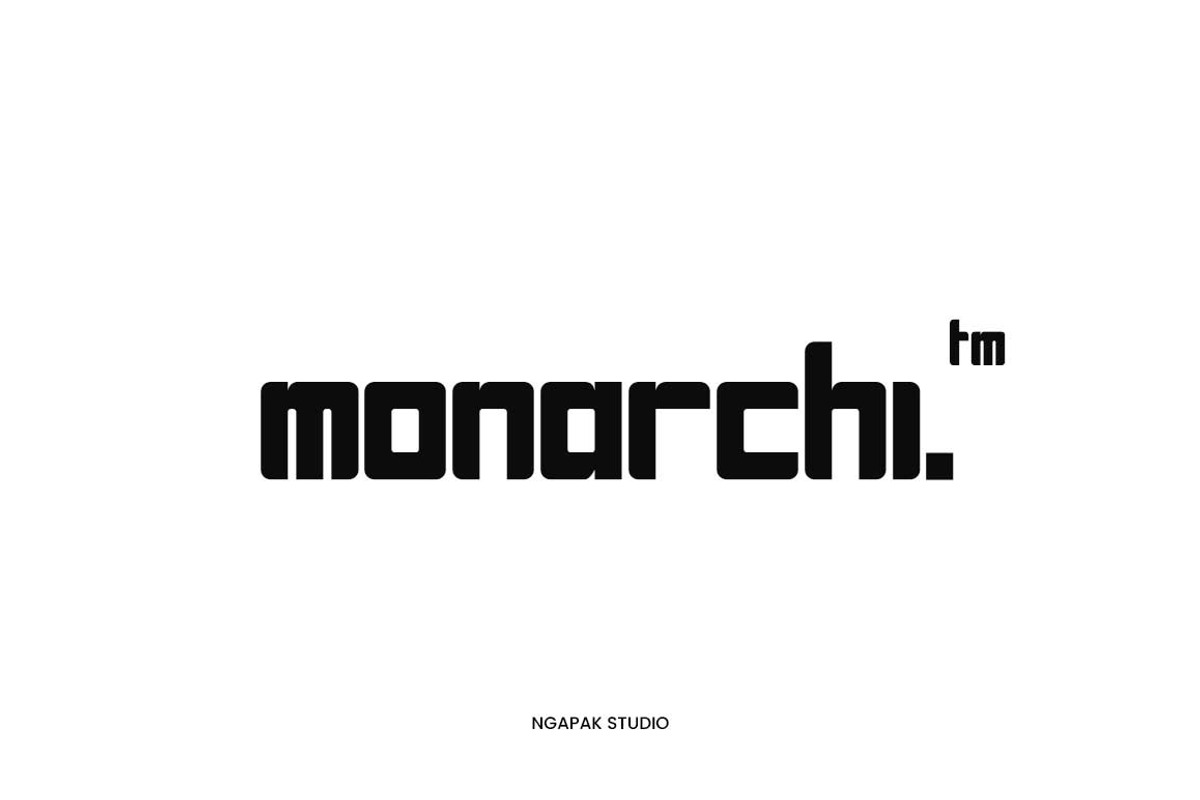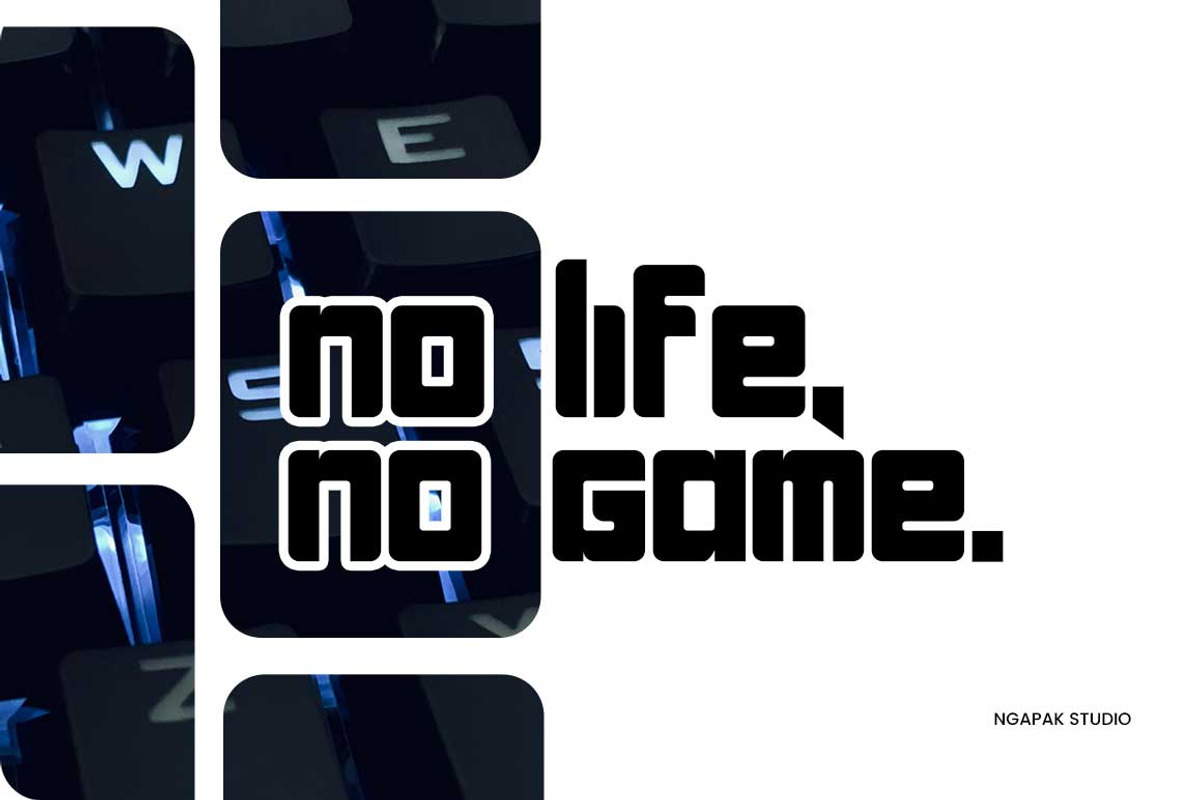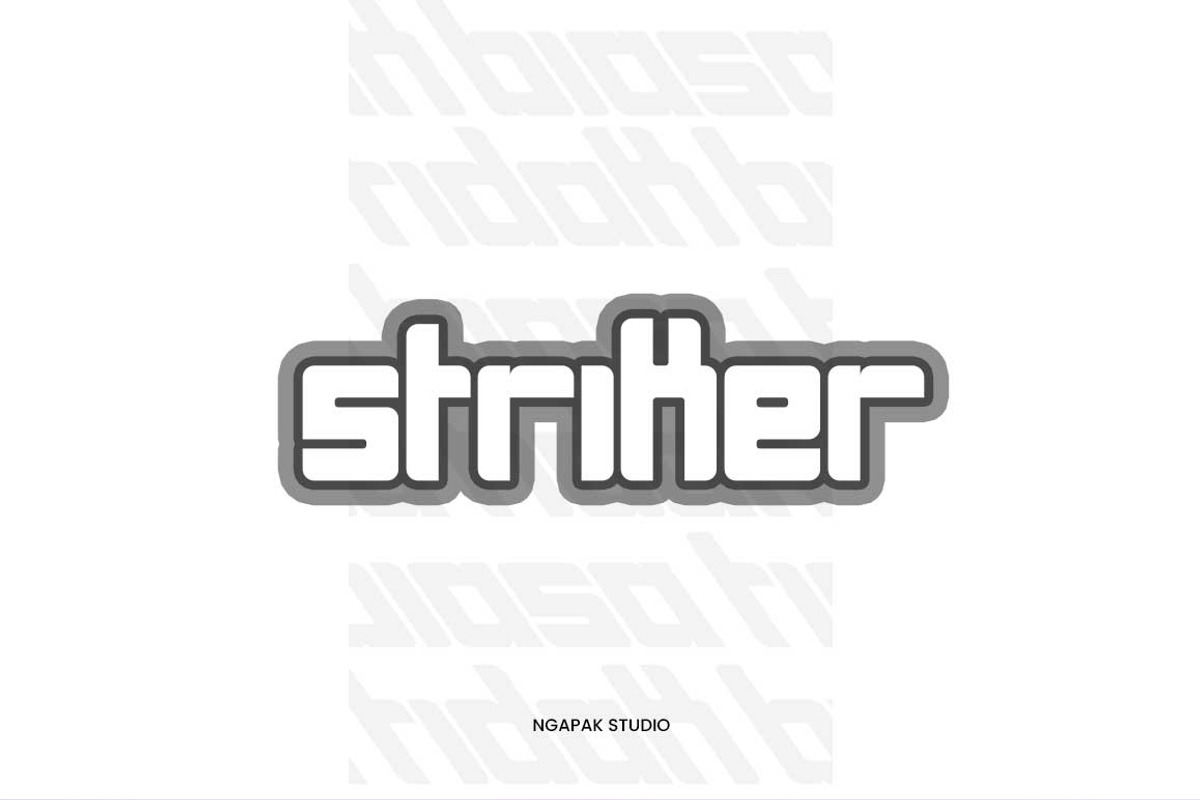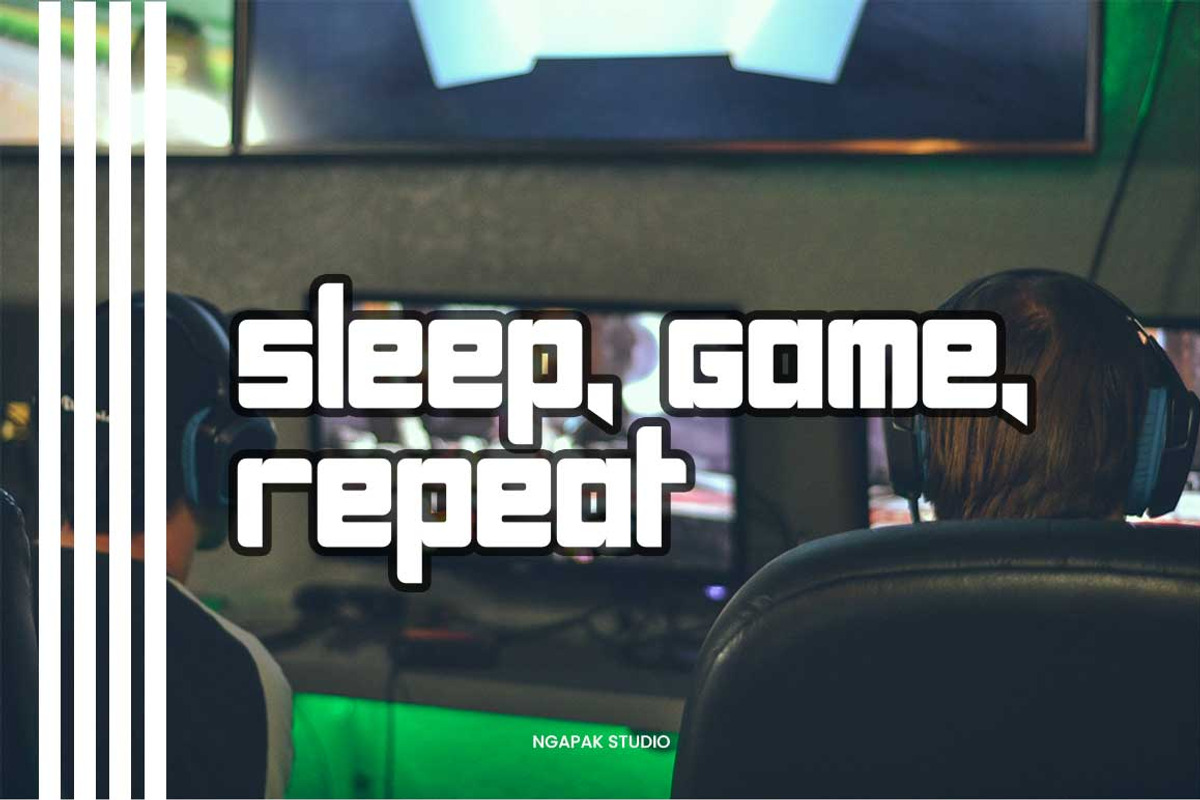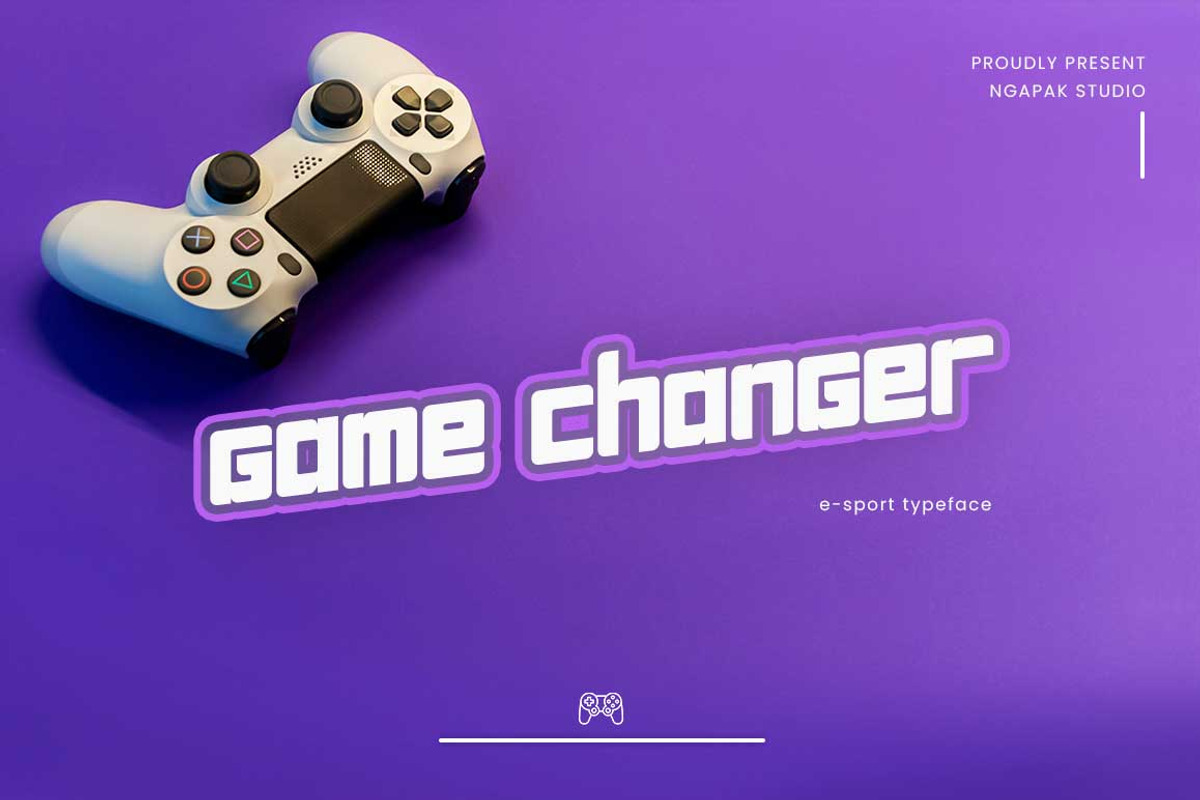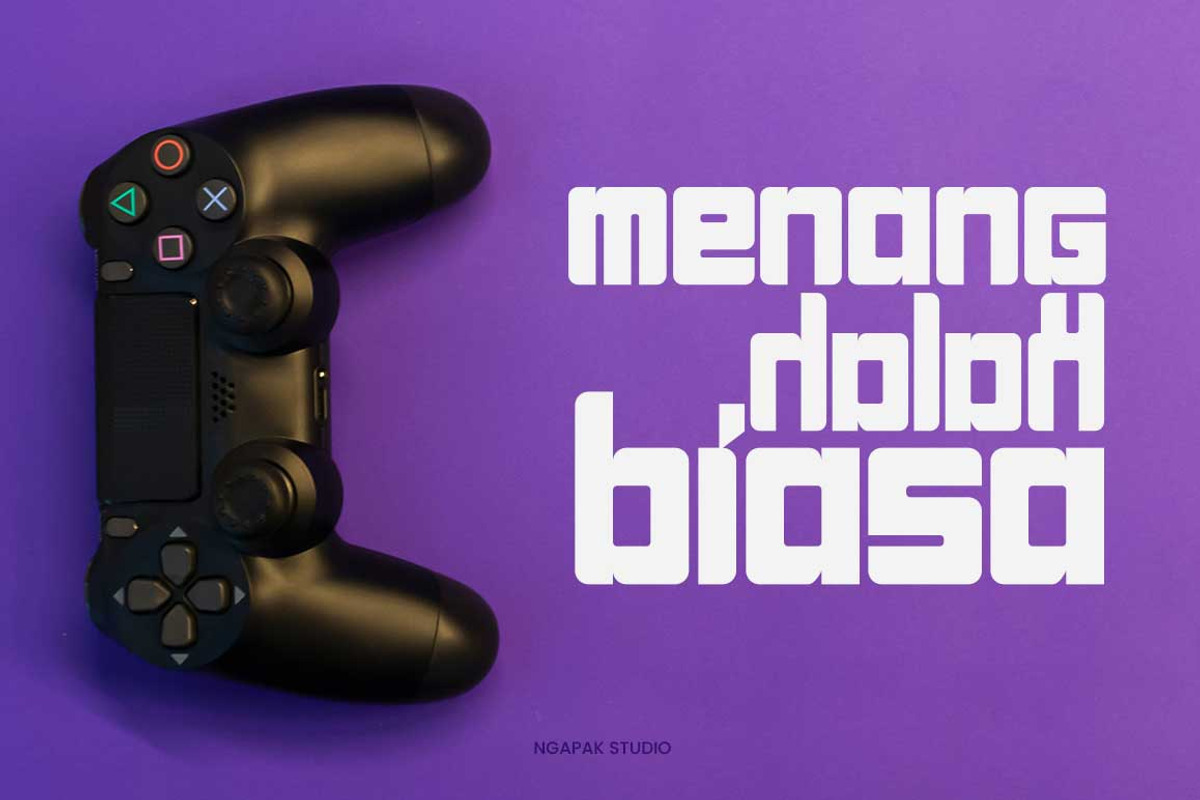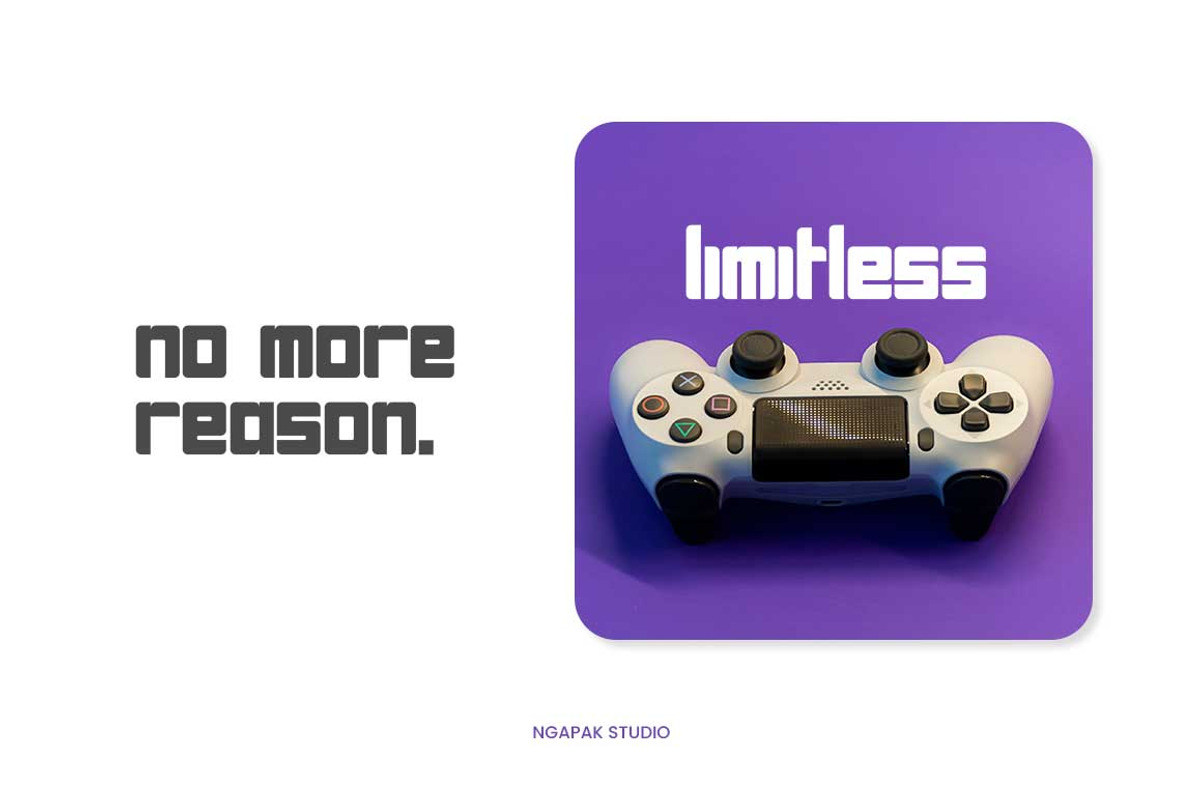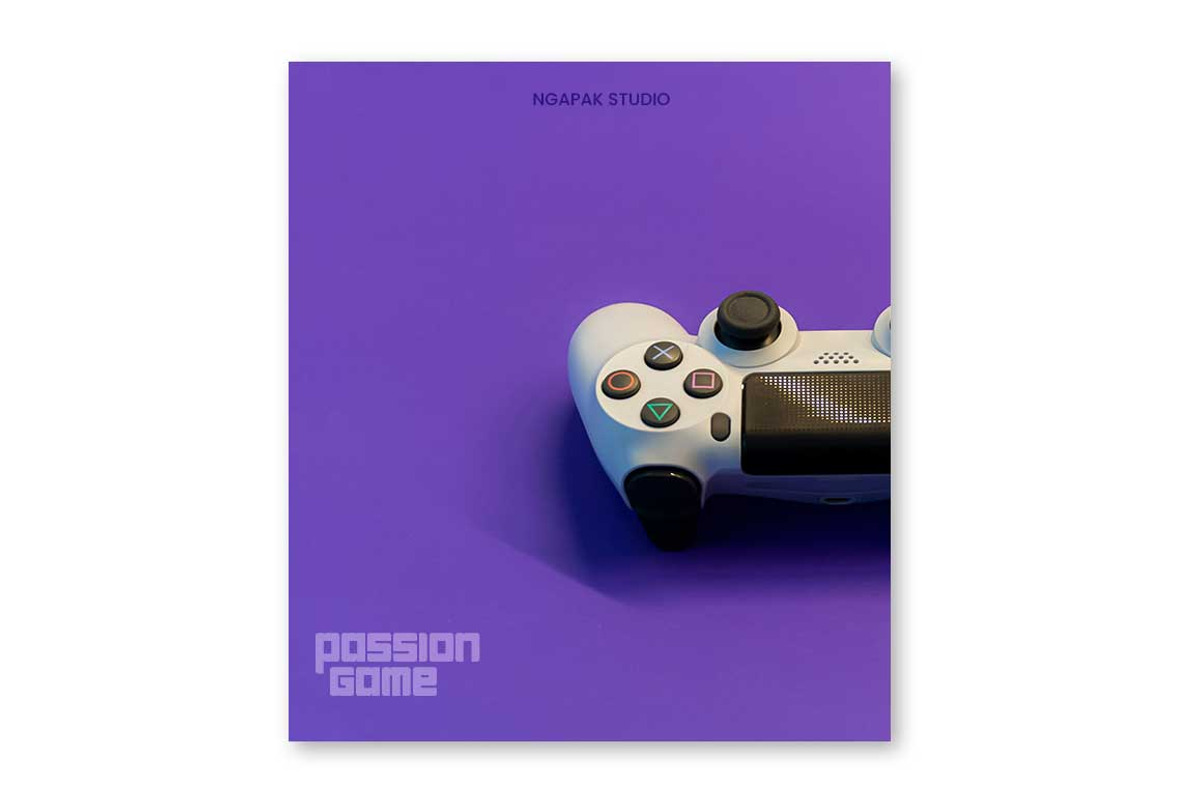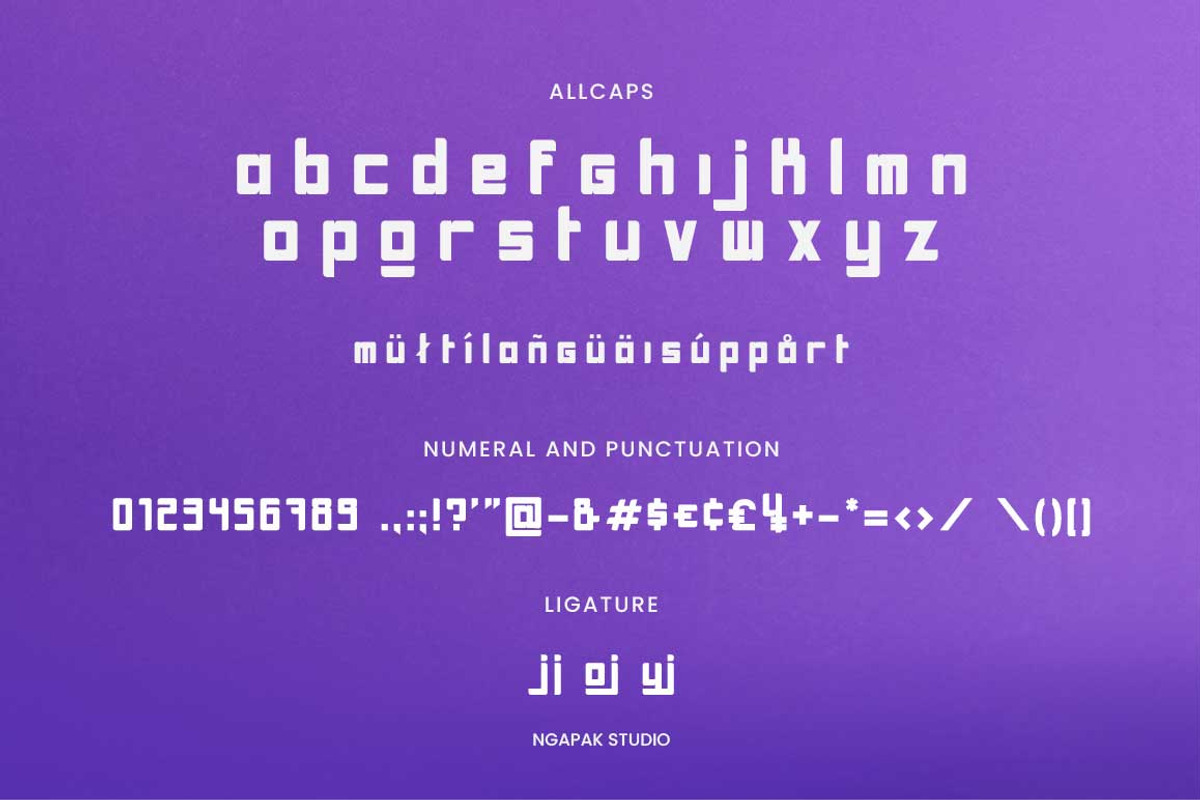
Game Changer | E-Sport Typeface
Game Changer is a All caps Display font with a stiff and modern display style that perfect for your e-sport logo project.
Game Changer is perfect for branding projects, logo, social media posts, advertisements, product packaging, product designs, label, photography, watermark, invitation, stationery and any projects that need modern display taste.
- Allcaps
- Fonts include multilingual support for; Afrikaans, Albanian, Asu, Basque, Bemba, Bena, Breton, Catalan, Chiga, Cornish, Danish, Dutch, English, Faroese, Filipino, French, Friulian, Galician, German, Gusii, Indonesian, Irish, Italian, Kabuverdianu, Kalenjin, Kinyarwanda, Luo, Luxembourgish, Luyia, Machame, Makhuwa-Meetto, Makonde, Malagasy, Manx, Morisyen, North Ndebele, Norwegian Bokmål, Norwegian Nynorsk, Nyankole, Oromo, Portuguese, Quechua, Romansh, Rombo, Rundi, Rwa, Samburu, Sango, Sangu, Scottish Gaelic, Sena, Shambala, Shona, Soga, Somali, Spanish, Swahili, Swedish, Swiss German, Taita, Teso, Uzbek (Latin), Volapük, Vunjo, Zulu.